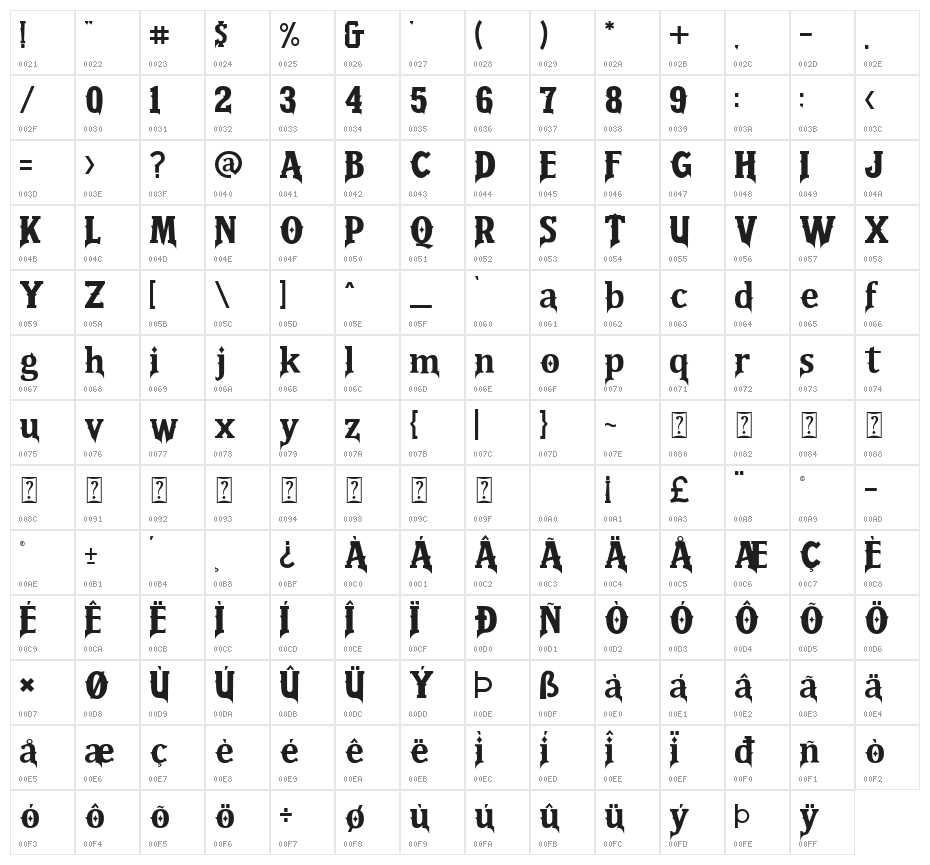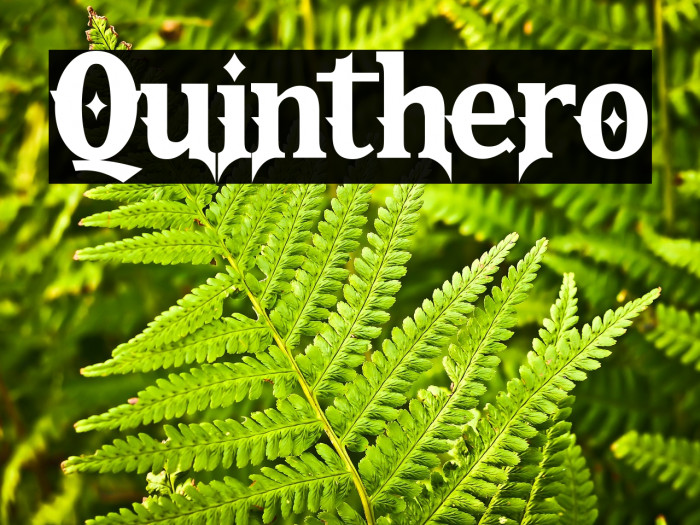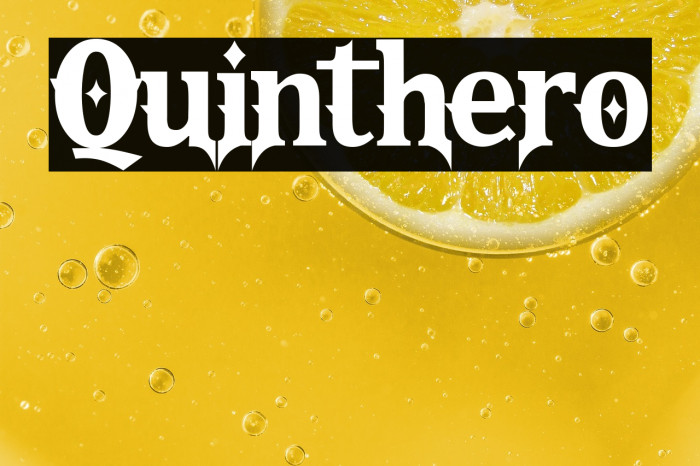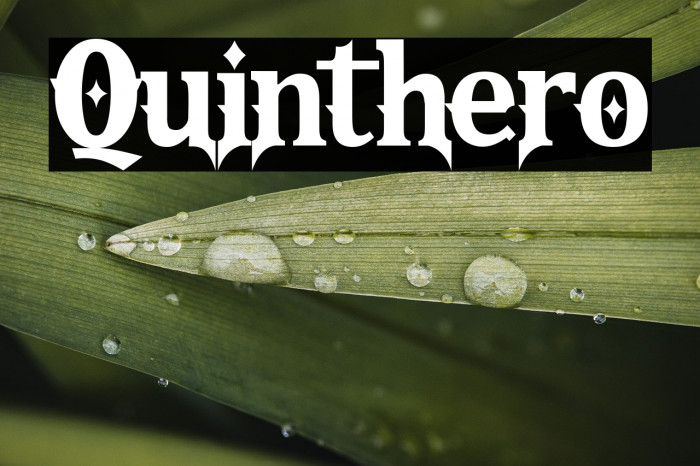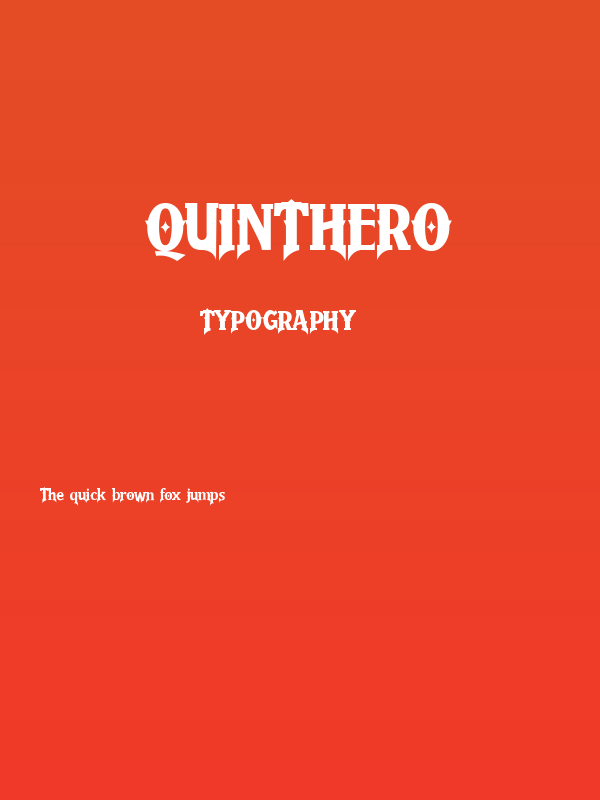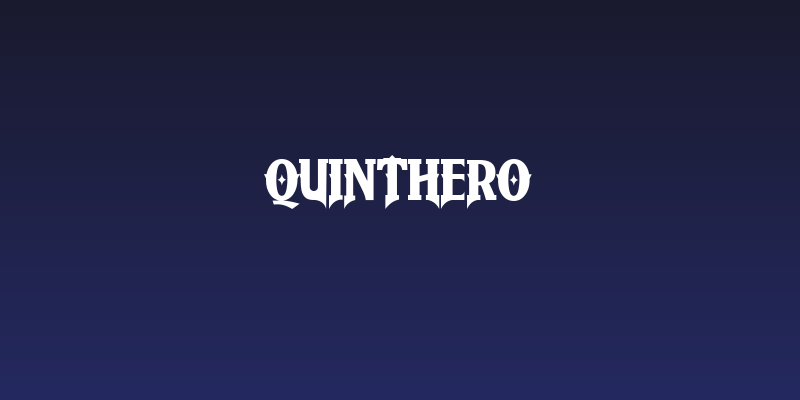
Quinthero Font
Quinthero Description
This font features a bold and striking design with sharp, angular serifs that give it a distinctive and edgy appearance. The uppercase letters are particularly prominent, with a strong presence that commands attention. The lowercase letters maintain the same boldness, ensuring consistency throughout. The numbers are equally bold, making them stand out clearly. Special characters are designed with the same sharp edges, adding to the overall cohesive look. This font is ideal for projects that require a strong visual impact, such as posters, headlines, or branding materials.
Proposed ProjectsIdeal for posters, headlines, branding, and any project needing a strong visual impact.